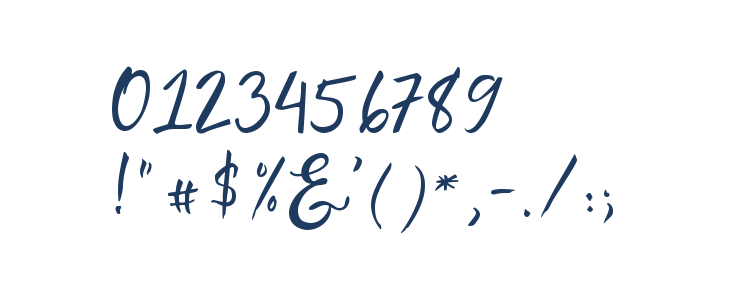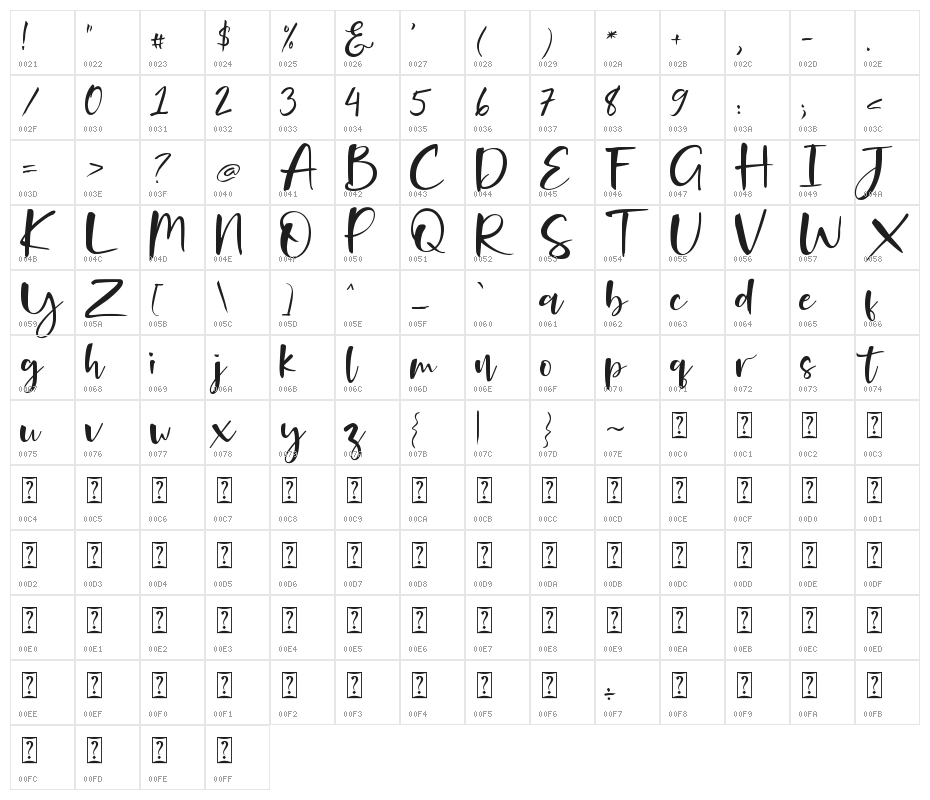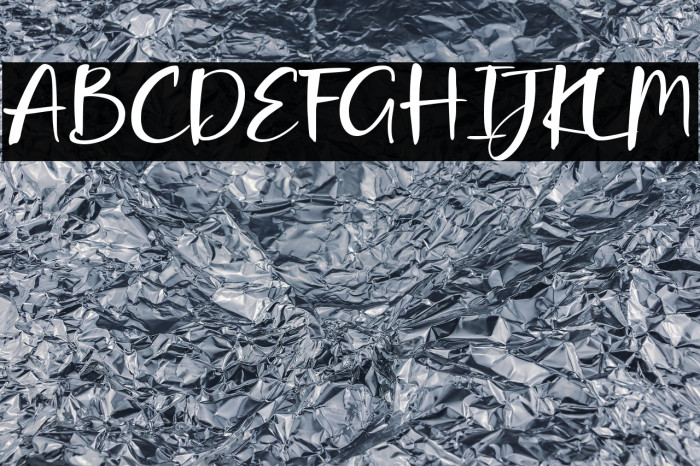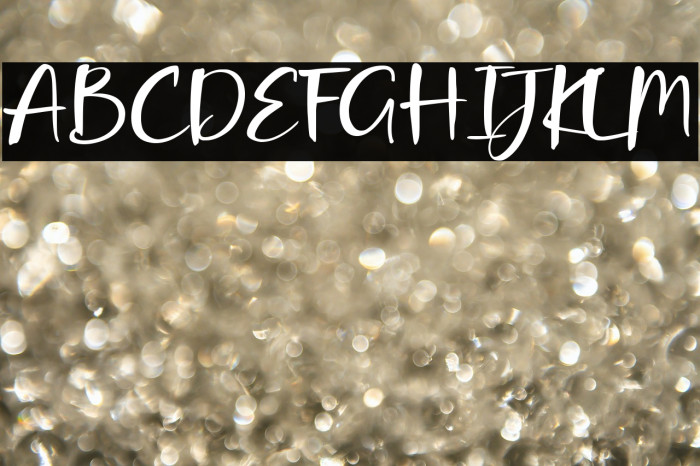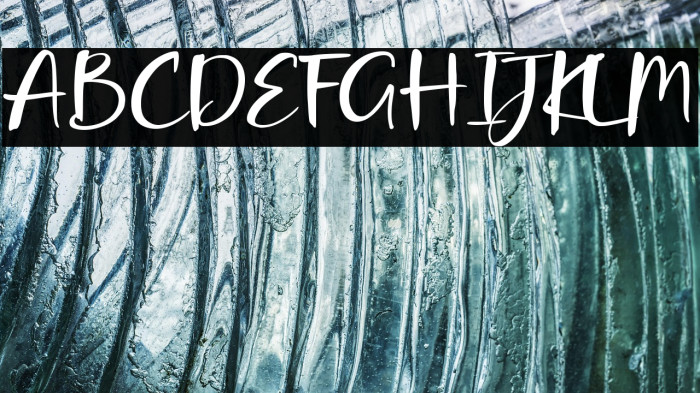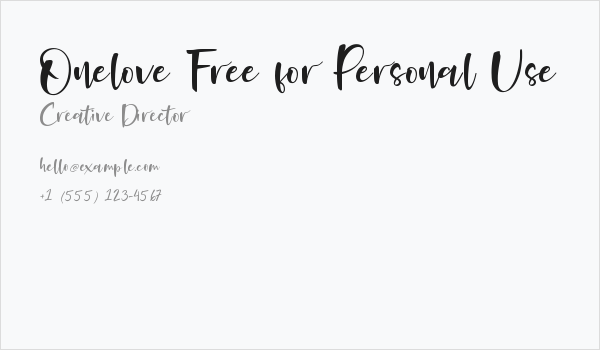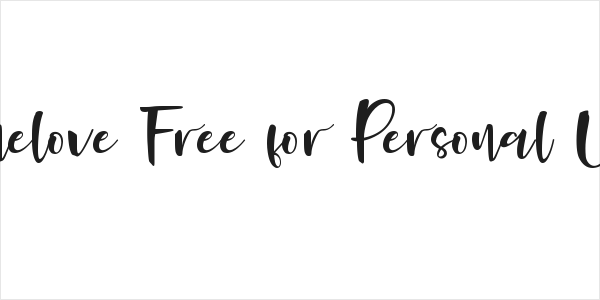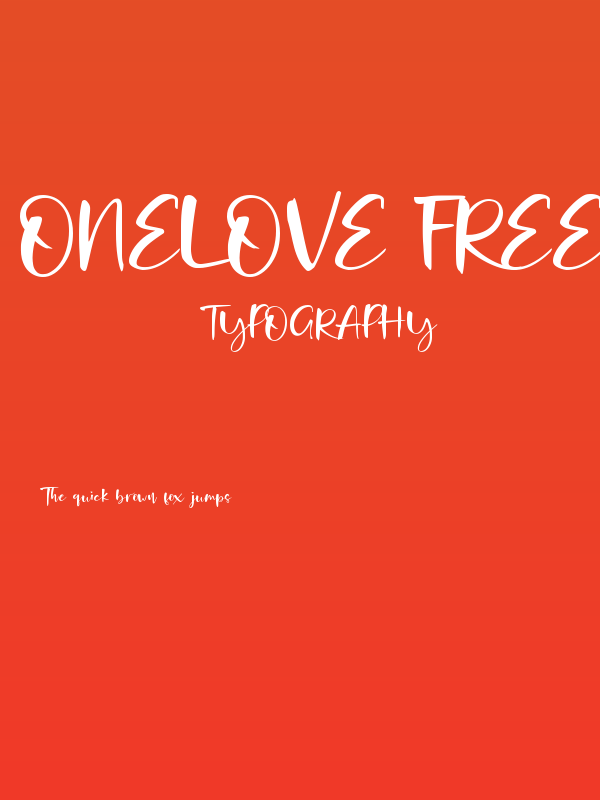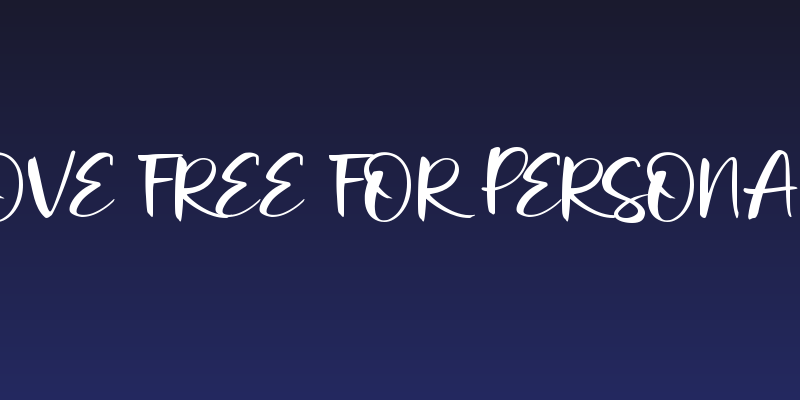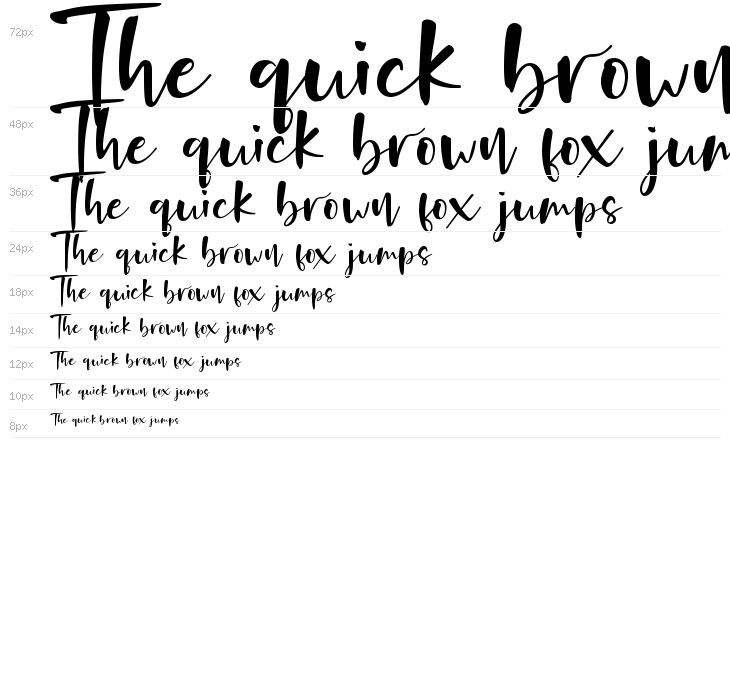
Onelove Free for Personal Use Font
Onelove Free for Personal Use Description
This font features a lively and expressive handwritten style, characterized by its fluid and dynamic strokes. The uppercase letters exhibit a bold and confident appearance, while the lowercase letters maintain a playful and casual vibe. The numerals are consistent with the overall style, offering a cohesive look. Special characters are creatively integrated, enhancing the font's versatility. The strokes vary in thickness, adding a sense of movement and energy to the text. This font is ideal for projects that require a personal touch, such as invitations, greeting cards, or branding materials.
| Proposed Projects | Ideal for invitations, greeting cards, branding materials, and personal projects. |